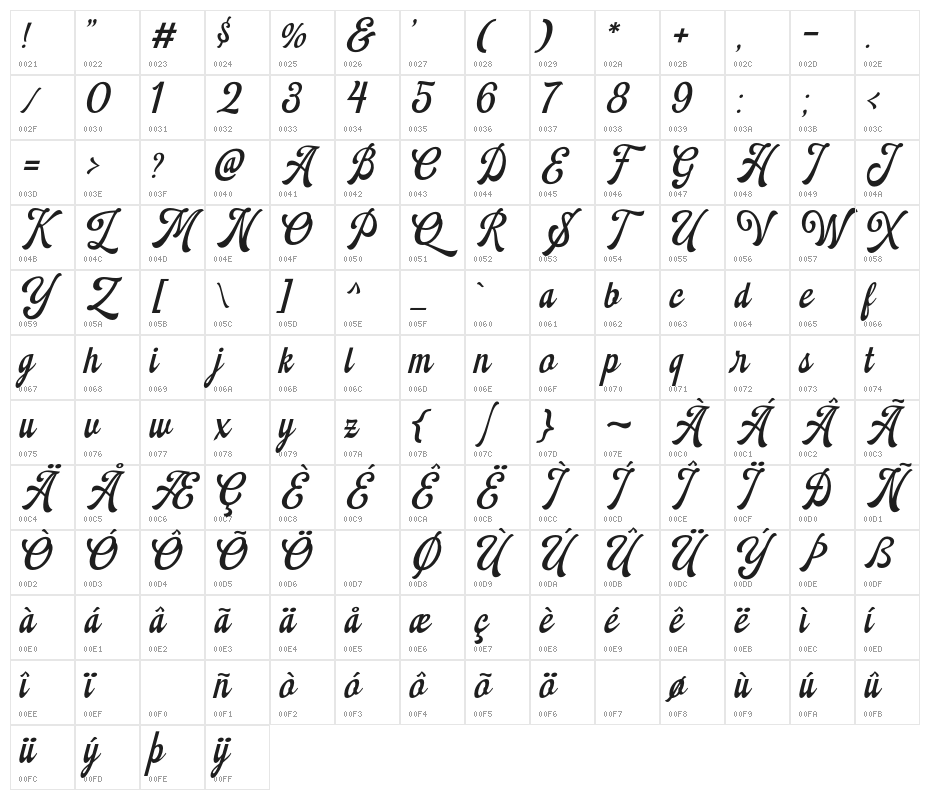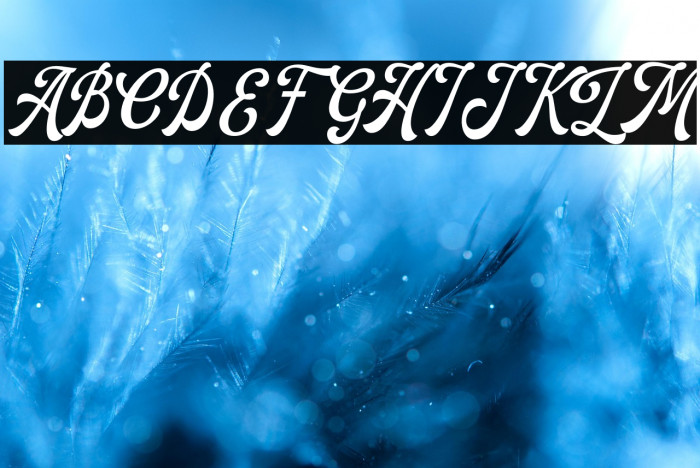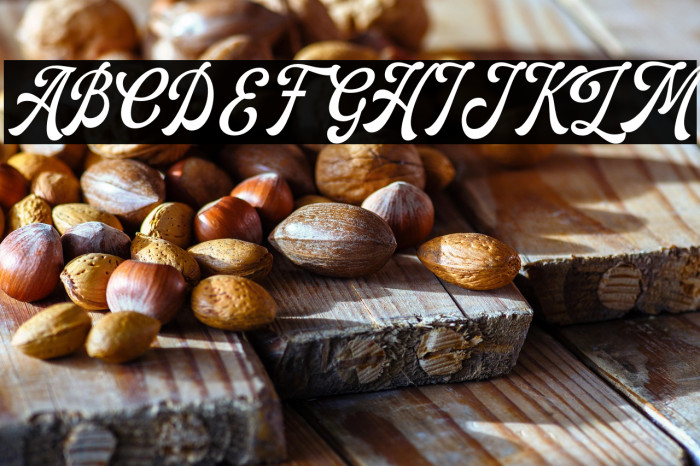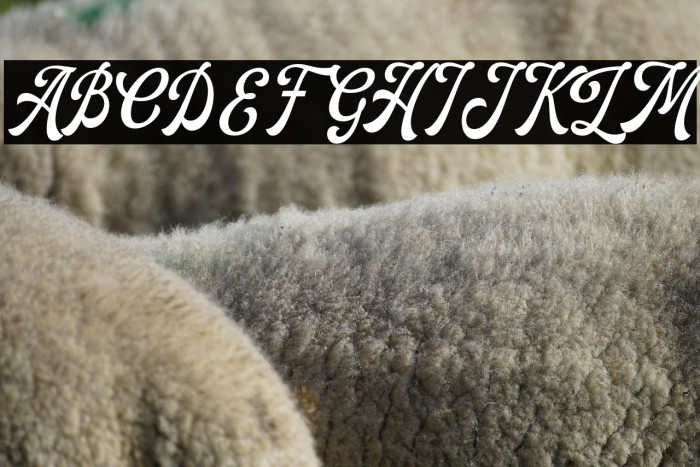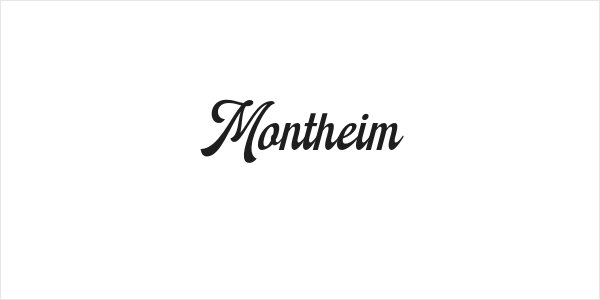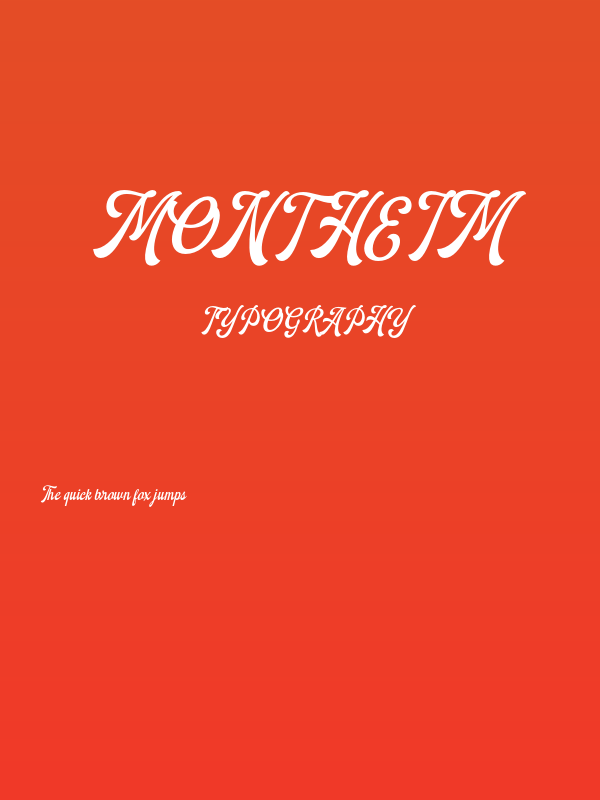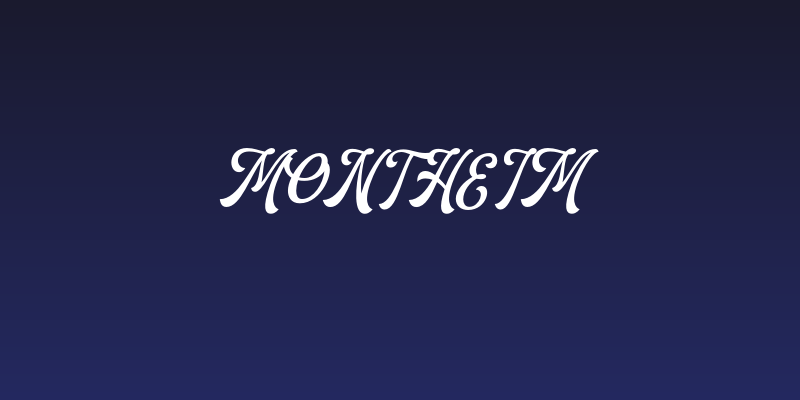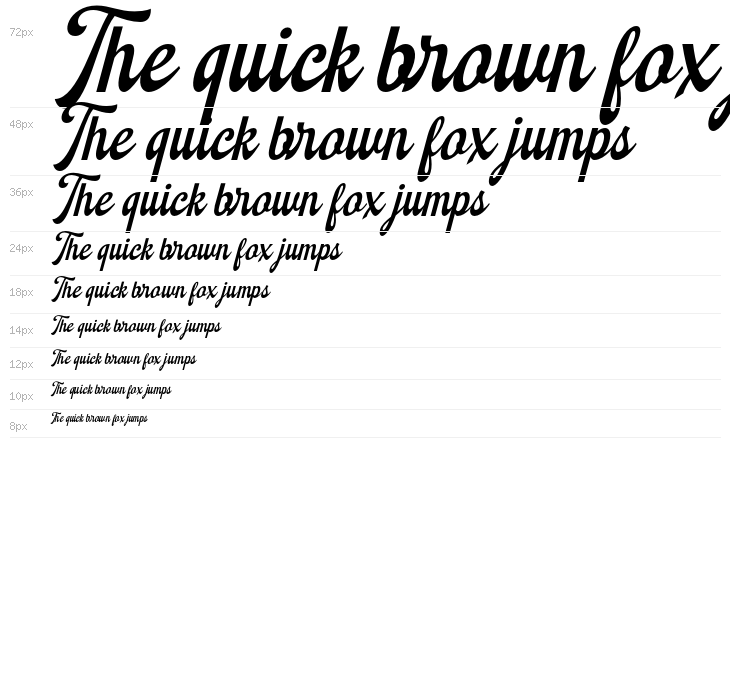
Montheim Font
Montheim Description
This font features a dynamic and flowing script style, characterized by its elegant and cursive letterforms. The uppercase letters exhibit a sophisticated flair with sweeping curves and a sense of movement, while the lowercase letters maintain a consistent rhythm and balance. The numerals are designed with a similar fluidity, ensuring a cohesive look across all characters. Special characters are thoughtfully integrated, complementing the overall aesthetic. The font's bold strokes and high contrast between thick and thin lines enhance its readability and visual impact, making it suitable for a variety of creative applications.
| Overall Style | Elegant, Decorative |
| Proposed Projects | Ideal for wedding invitations, branding, logo design, and elegant packaging. |